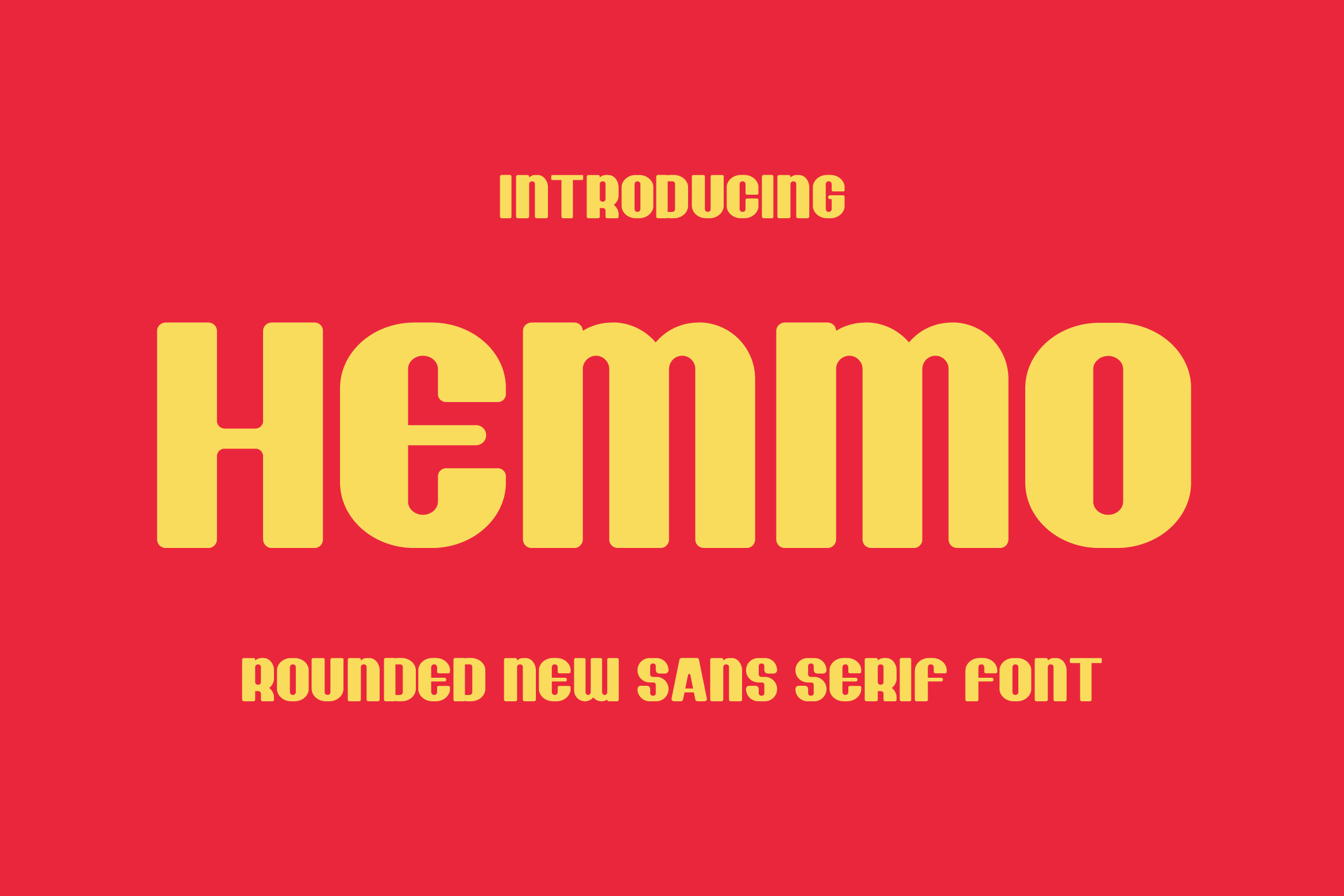
- Hemmo Playful Rounded Font
Hemmo is a playful yet elegant rounded sans serif font designed to bring warmth and creativity to your projects. Featuring smooth curves, balanced proportions, and a clean structure, Hemmo adds a friendly and modern vibe to any design.
Perfect for branding, packaging, editorial layouts, web design, and social media graphics, Hemmo combines simplicity with uniqueness, making it ideal for lifestyle, fashion, and creative industries. Its rounded edges provide a softer tone without sacrificing clarity, ensuring excellent readability in both headlines and body text.
The font includes uppercase and lowercase letters, numerals, punctuation, multilingual support, and stylistic alternates for added flexibility.
Give your designs a touch of modern friendliness with Hemmo — the rounded sans serif font that blends creativity, elegance, and approachability.